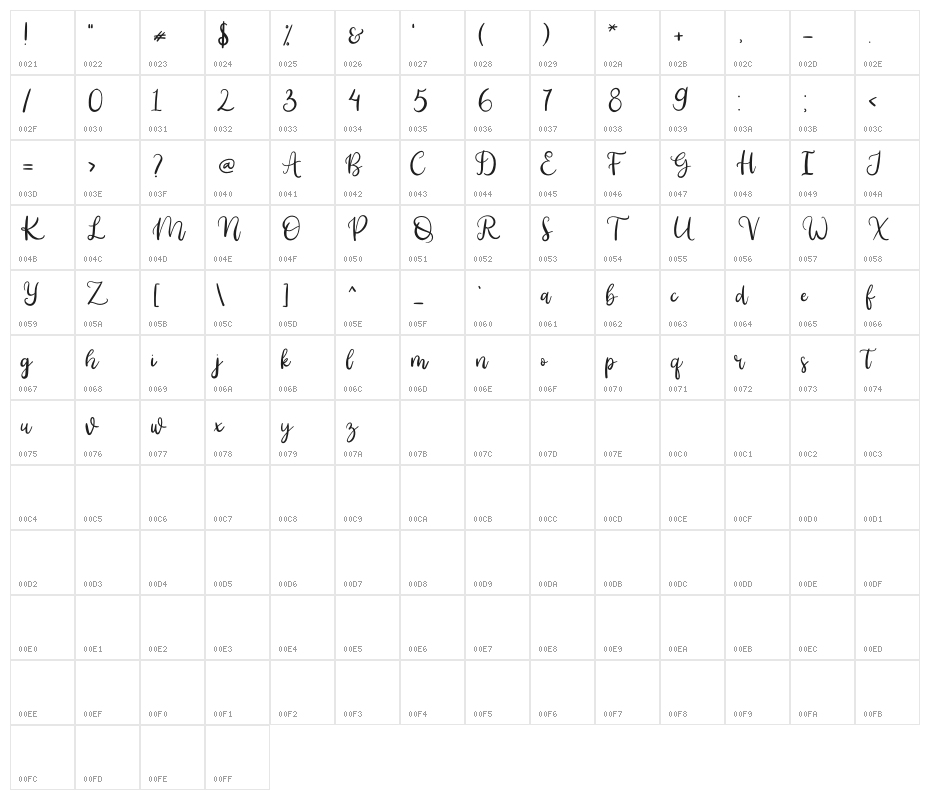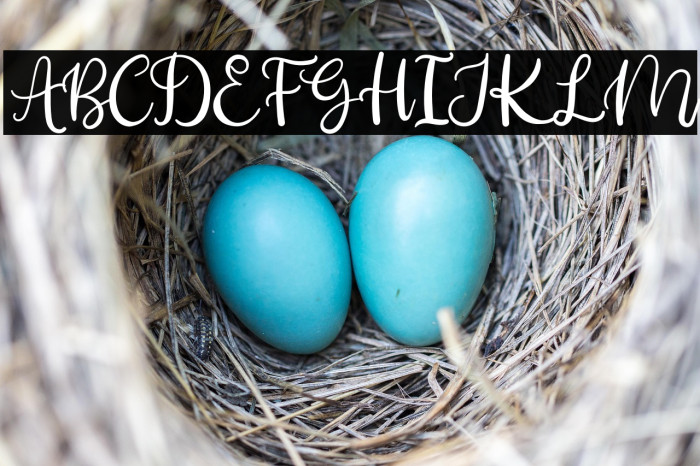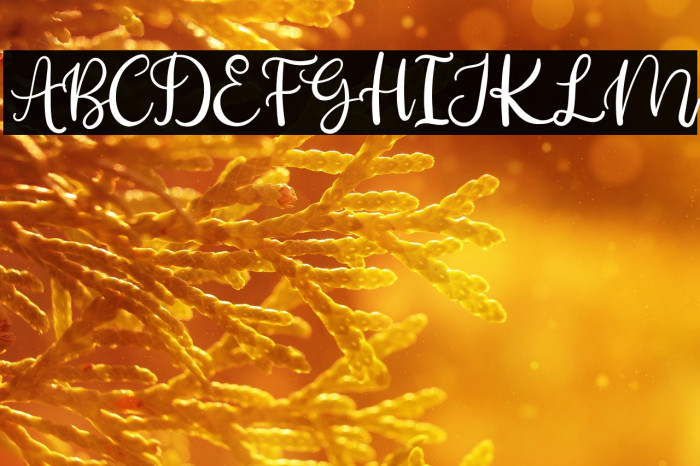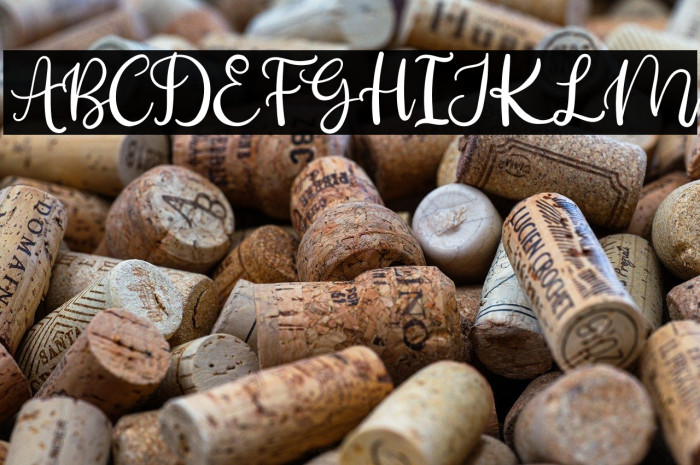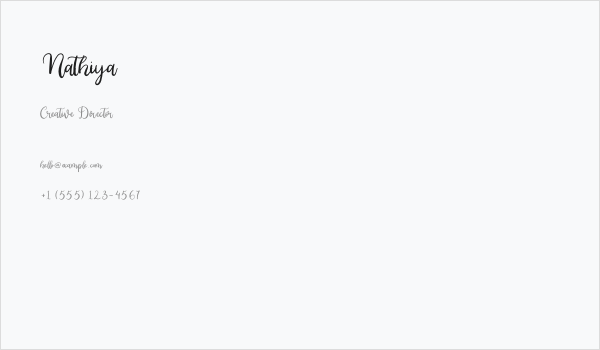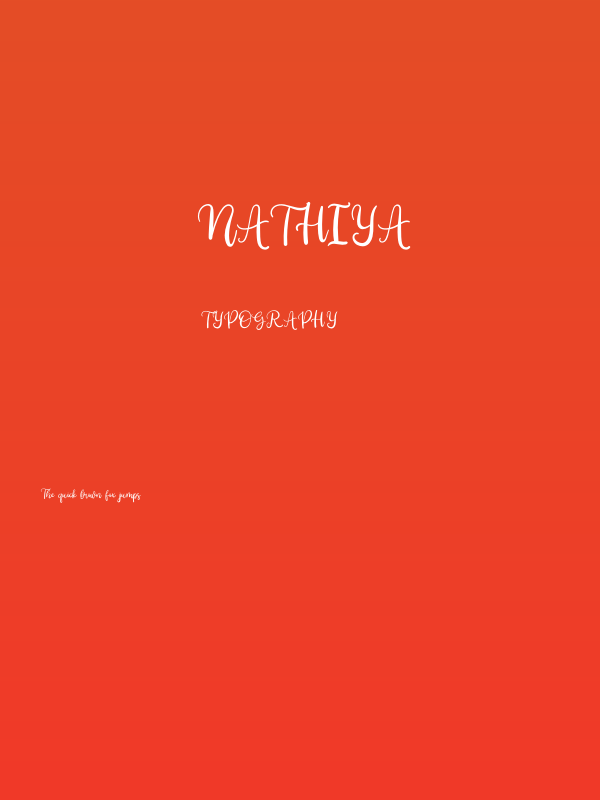
Nathiya Font
Nathiya Description
This font features a flowing, cursive style with a handwritten appearance. The uppercase letters are elegantly crafted with smooth curves and loops, giving them a sophisticated yet approachable feel. The lowercase letters maintain a consistent style, with some characters featuring unique flourishes that add personality. Numbers are clear and legible, designed to complement the overall aesthetic. Special characters are thoughtfully integrated, ensuring versatility in various design contexts. The font's playful yet refined nature makes it suitable for creative projects that require a personal touch.
| Proposed Projects | Ideal for wedding invitations, greeting cards, personal branding, and creative projects requiring a personal touch. |